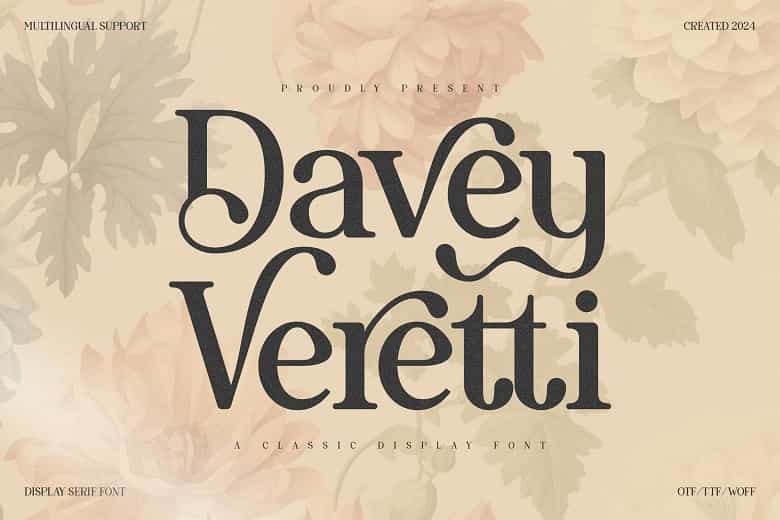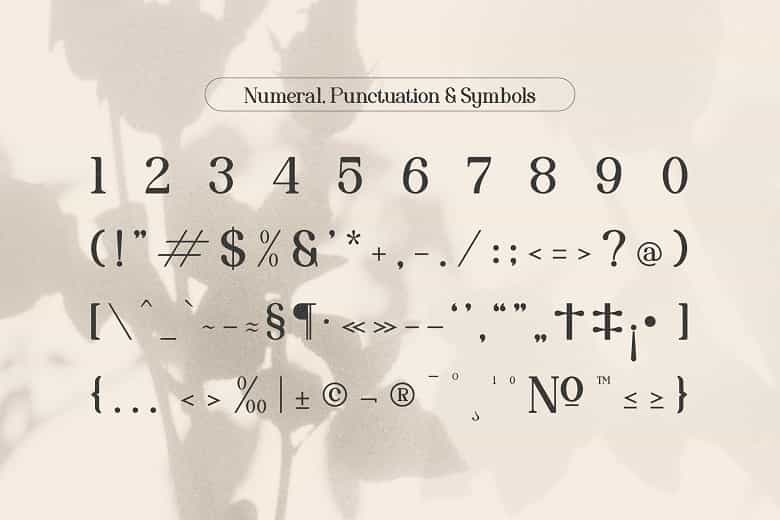
Davey Veretti is a classic display font, from Denustudios, It’s suitable for any projects such as: logos, branding projects, homeware designs, product packaging, mugs, quotes, posters, shopping bags, t-shirts, book covers, name card, invitation cards, greeting cards, label, special events, and all your other lovely projects that need a Classic Display Font touch.